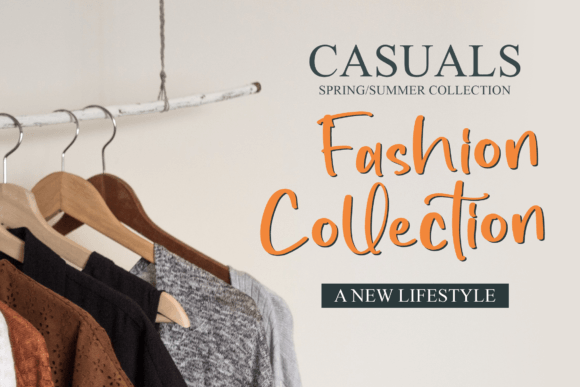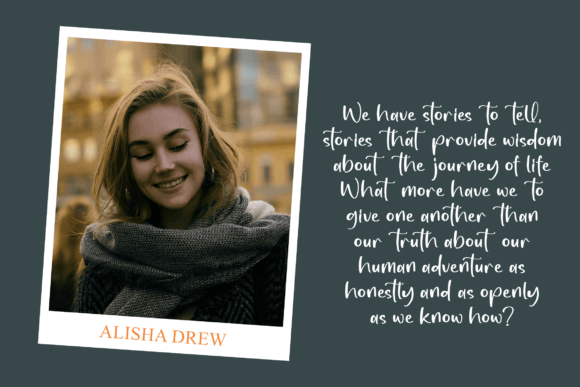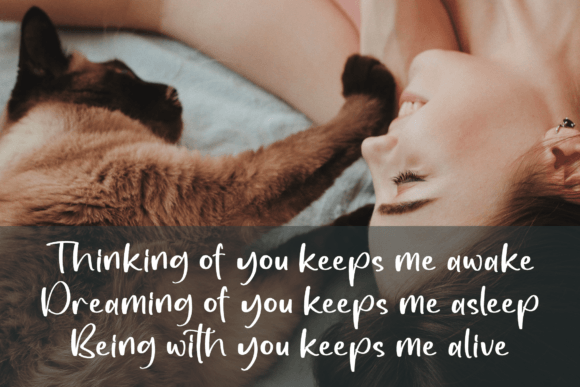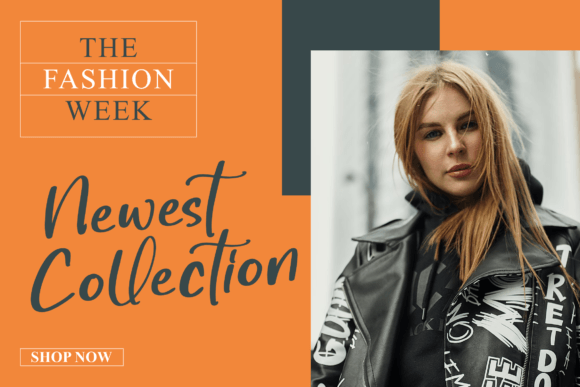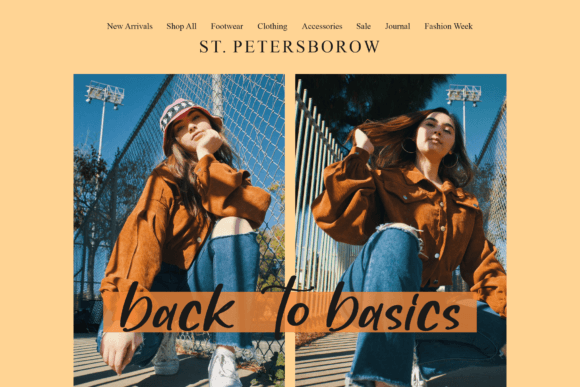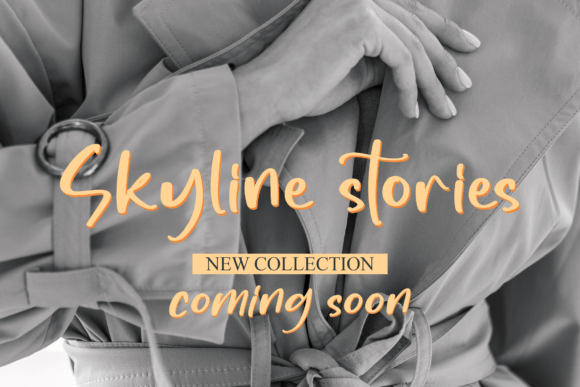
Introduction to Slaymitte Font Font
Fonts play a crucial role in design, and the Slaymitte Font font is a typeface that brings both character and versatility to any project. Whether you’re working on a branding project, a website, or a print design, the Slaymitte Font font offers a unique style that can elevate your work.
Slaymitte is an amazing handwritten font suitable for logos, branding projects, homeware designs, product packaging, mugs, quotes, posters, shopping bags, T-shirts, book covers, name cards, invitation cards, greeting cards, labels, photography, watermark, special events, and all your other lovely projects that need a beautiful touch.
Slaymitte is an amazing handwritten font suitable for logos, branding projects, homeware designs, product packaging, mugs, quotes, posters, shopping bags, T-shirts, book covers, name cards, invitation
Key Features of Slaymitte Font Font
Why Choose Slaymitte Font Font?
The Slaymitte Font font is more than just a typeface – it’s a design tool that helps you communicate your message with style and clarity. Its unique character set and versatile design make it suitable for a wide range of applications, from elegant invitations to bold headlines.
With its carefully crafted letterforms and balanced proportions, the Slaymitte Font font ensures readability and visual appeal across all mediums.
What makes Slaymitte Font font special?
The Slaymitte Font font stands out with its unique design, exceptional readability, and versatility across various design applications.